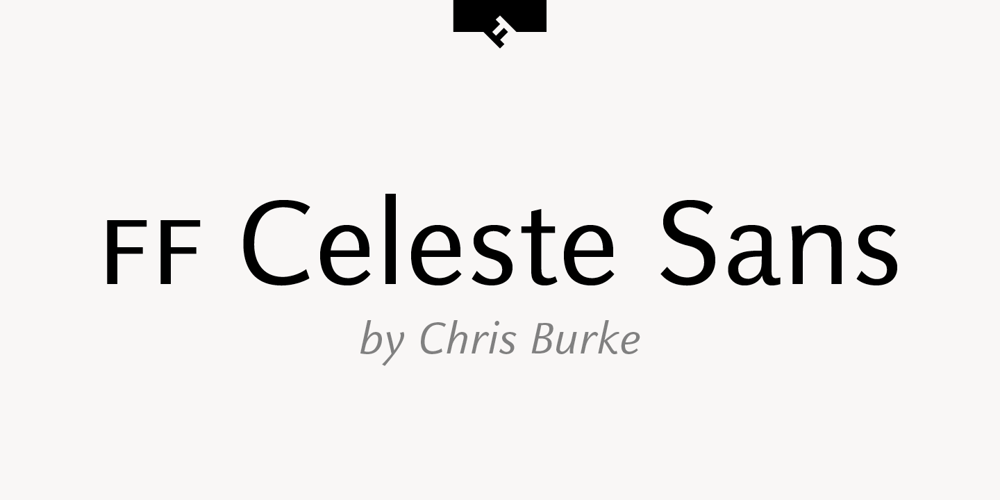
FF Celeste Sans Font Family was designed by Christopher Burke and published by FontFont. FF Celeste Sans contains 8 styles and family package options. British type designer Chris Burke created this sans FontFont between 1994 and 2004. The family has 8 weights, ranging from Regular to Black (including italics) and is ideally suited for book text, editorial and publishing as well as logo, branding and creative industries. FF Celeste Sans provides advanced typographical support with features such as ligatures, small capitals, alternate characters, case-sensitive forms, fractions, and super- and subscript characters. It comes with a complete range of figure set options – oldstyle and lining figures, each in tabular and proportional widths. This FontFont is a member of the FF Celeste super family, which also includes FF Celeste and FF Celeste Small Text.